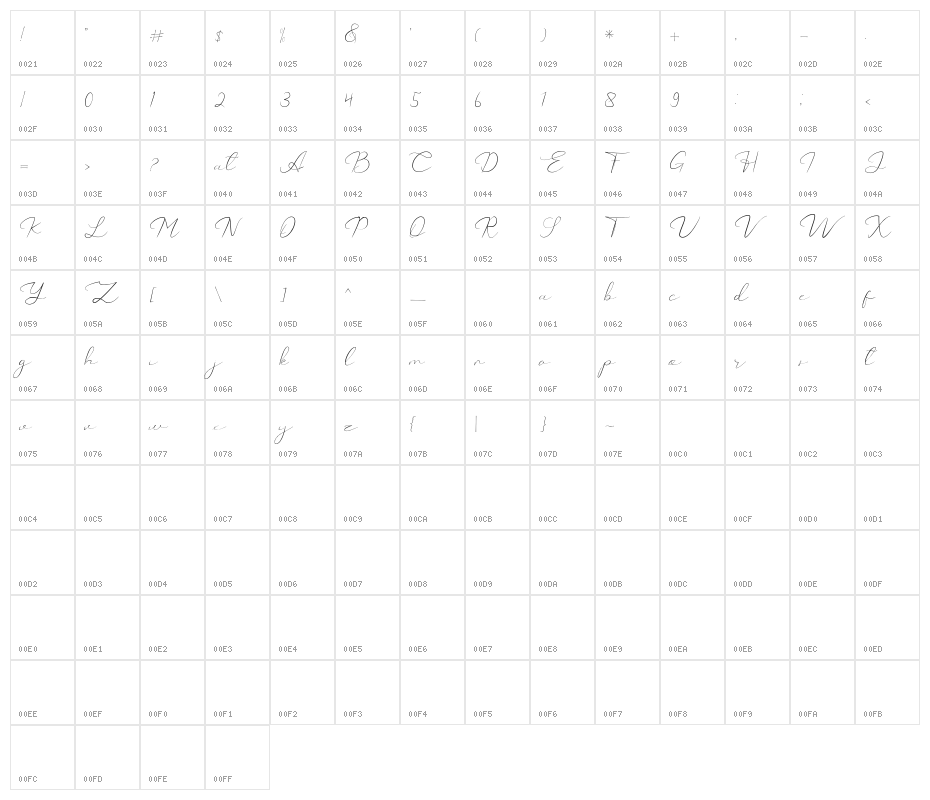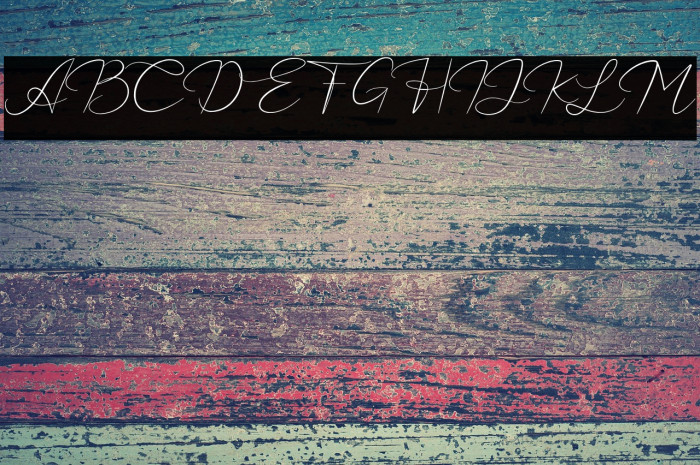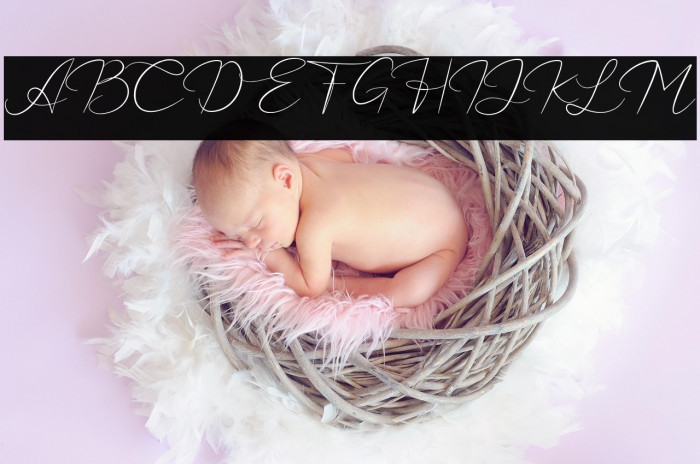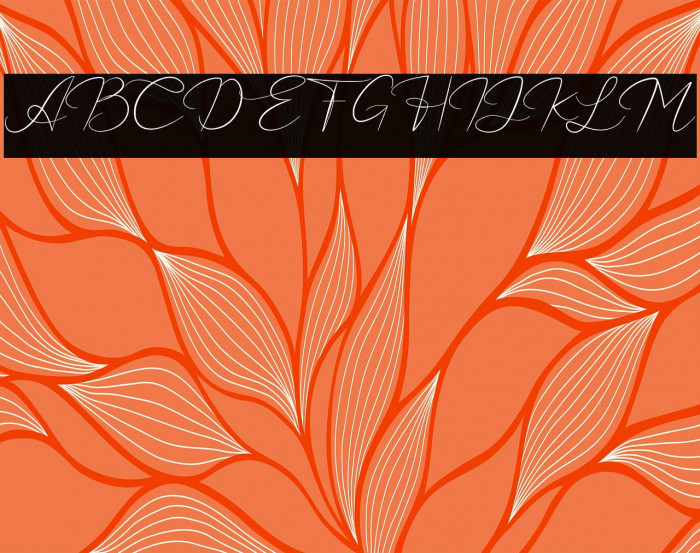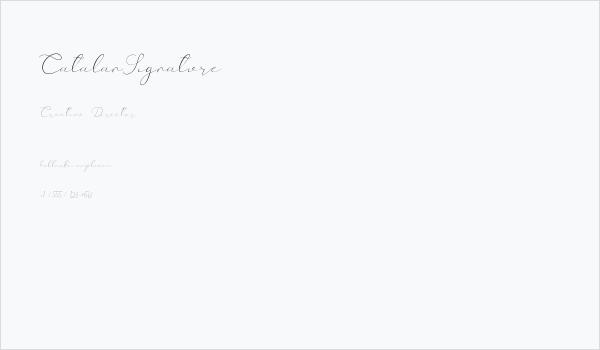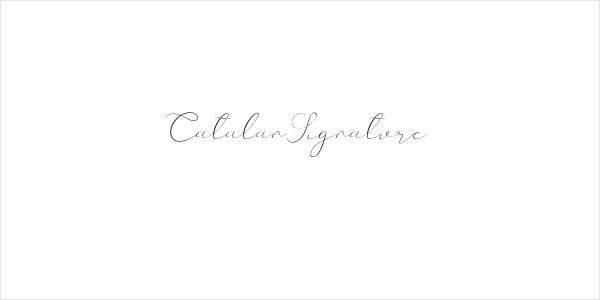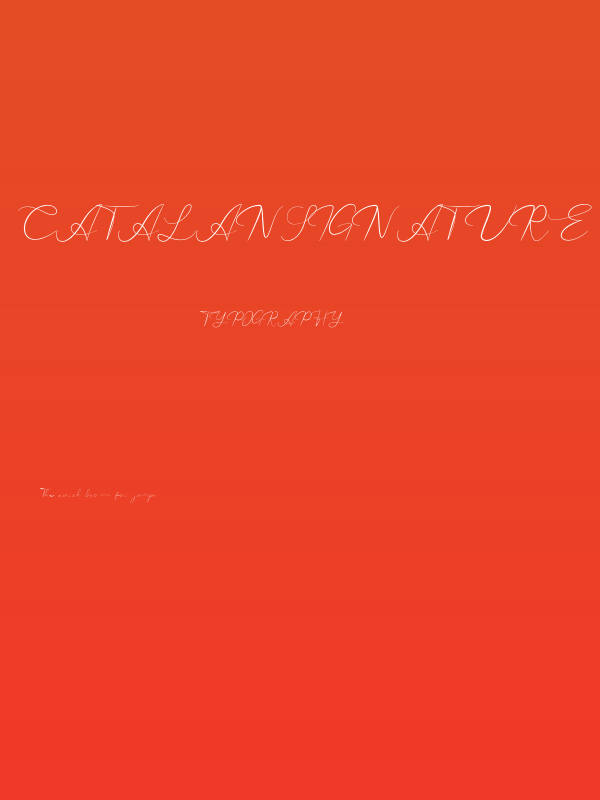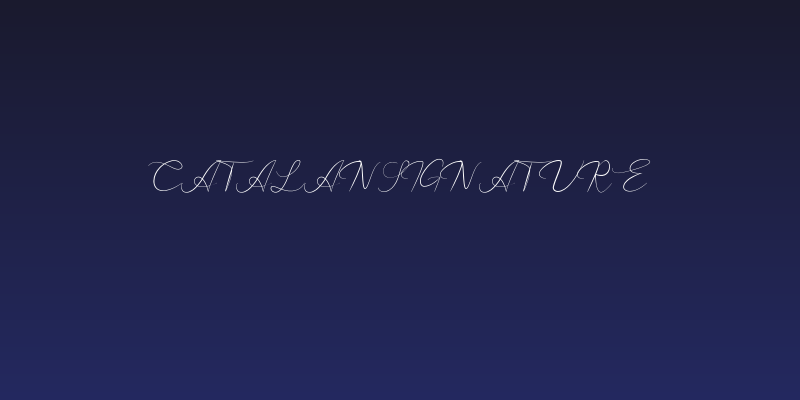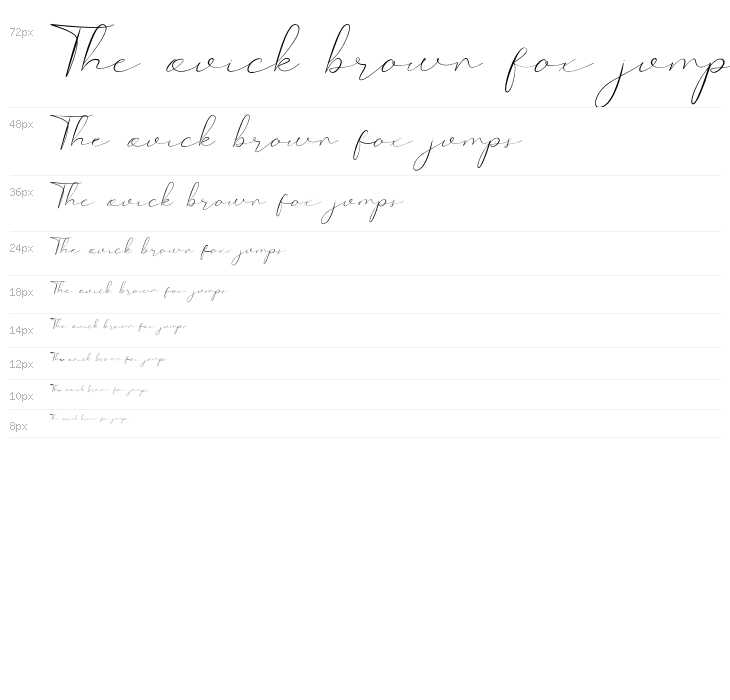
CatalanSignature Font
CatalanSignature Description
This elegant script font features a flowing, cursive style that mimics the fluidity of a handwritten signature. The uppercase letters are gracefully elongated with sweeping curves, while the lowercase letters maintain a consistent slant, enhancing the overall fluidity. The numerals and special characters are crafted with the same attention to detail, ensuring a cohesive look across all characters. The thin strokes and delicate lines give it a sophisticated and refined appearance, making it ideal for formal invitations, branding, and personal signatures. The font's airy and open design allows for excellent readability despite its intricate style.
| Use Case | Logos, Invitations, Personal Signatures |
| Proposed Projects | Ideal for wedding invitations, personal branding, elegant stationery, and luxury product packaging. |